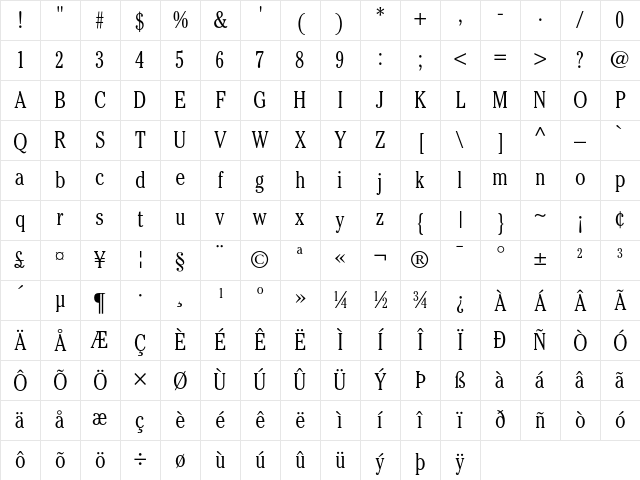
ITC Cheltenham Light Condensed
Style: Light Condensed
Complete ITC Cheltenham Light Condensed glyph index. Displaying only characters natively supported by ITC Cheltenham Light Condensed font.
Design Context for ITC Cheltenham
ITC Cheltenham is a composed and adaptable typeface that performs quietly and consistently across a wide range of design contexts. Its slender proportions lend an understated elegance to any composition. Its narrow stance lets it pack a punch even in space-constrained designs.